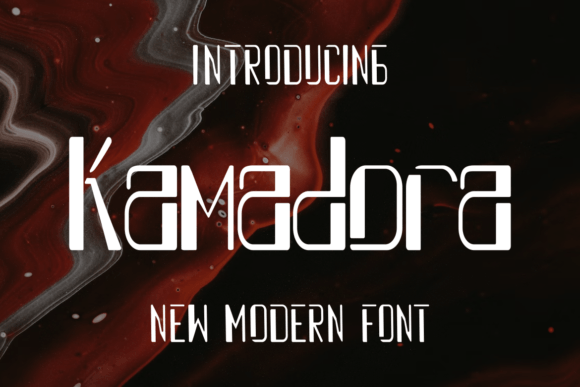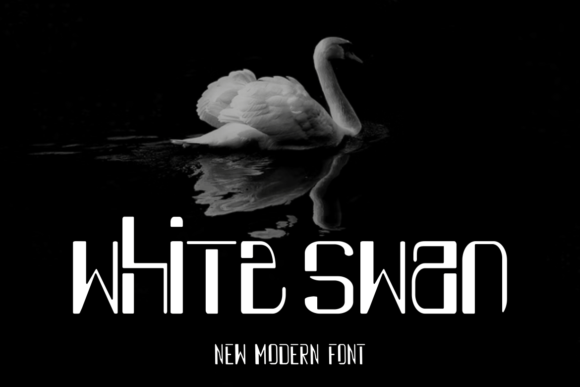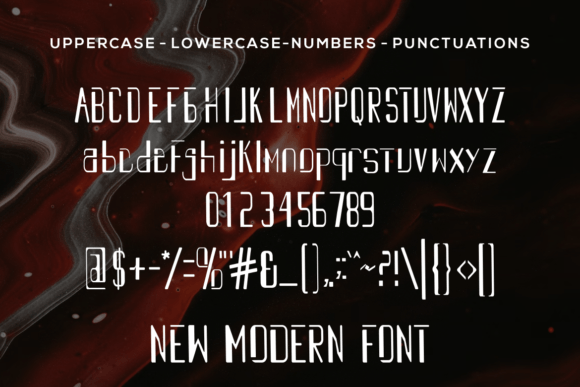
Introduction to Kamadora Font
Kamadora is a unique sans serif font that feels beautiful, solemn, and modern.
This font is perfectly suited for a wide variety of projects, such as signature, stationery, logo, wedding, typography quotes, magazine or book cover, website header, clothing, branding, packaging design, and more .
Key Features of Kamadora Font
Why Choose Kamadora Font?
Kamadora Font offers exceptional quality and versatility, making it a valuable addition to your design toolkit. Whether you’re creating for personal projects or commercial use, Kamadora Font delivers professional results.